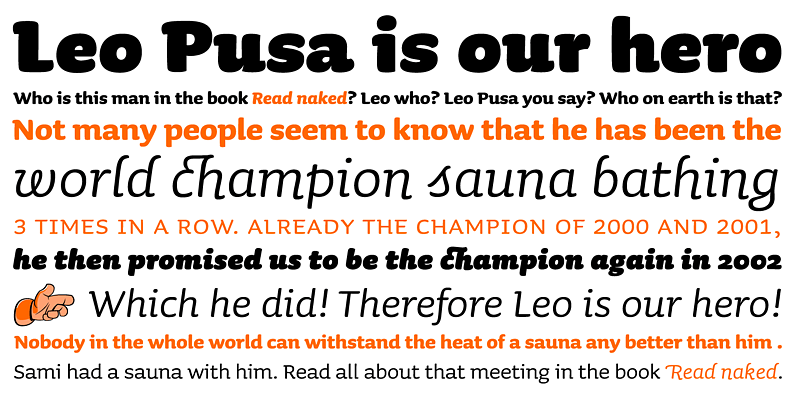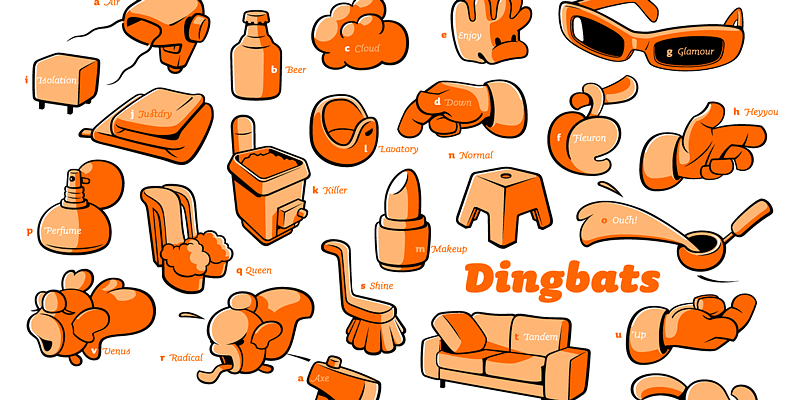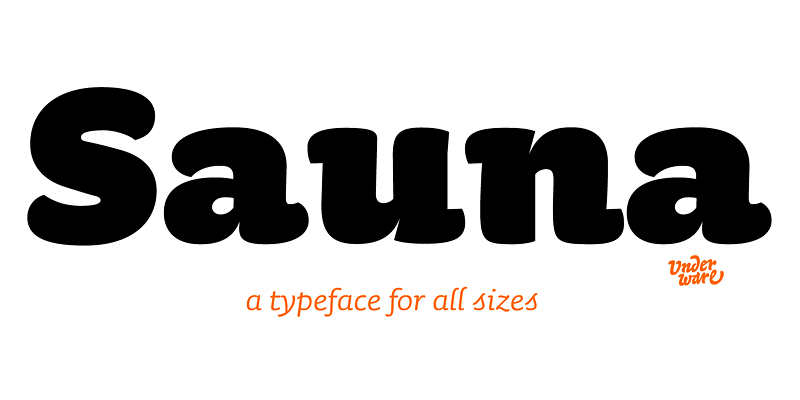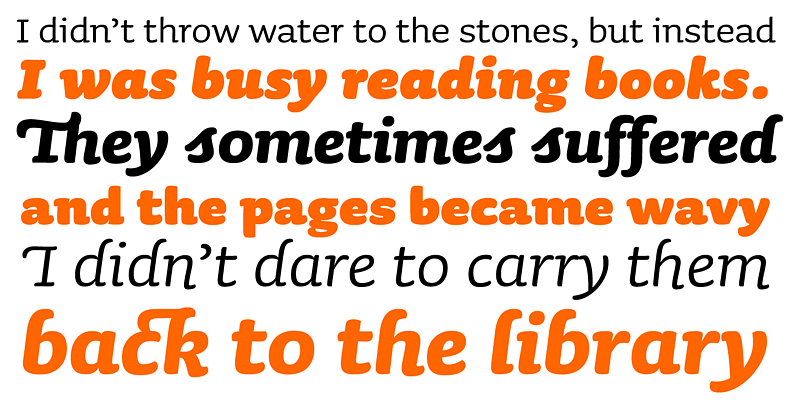
Sauna is a super friendly family. Light weights for small sizes, black weights flourish in large poster sizes. Two different italics offer typographic extravaganza flair. Sauna is your best friend.